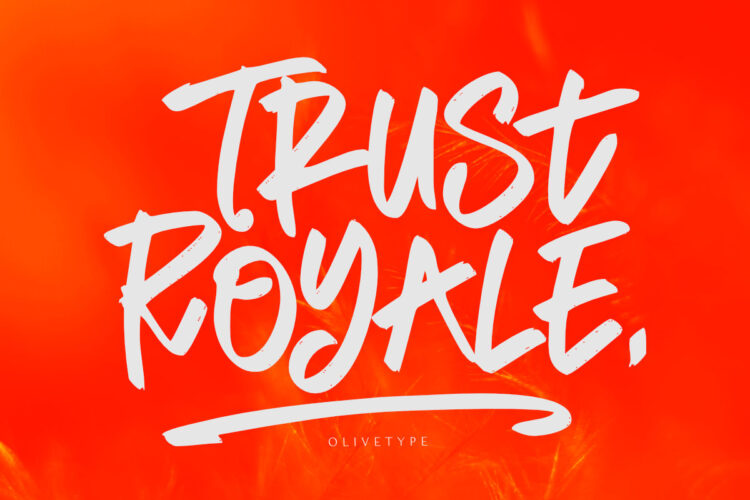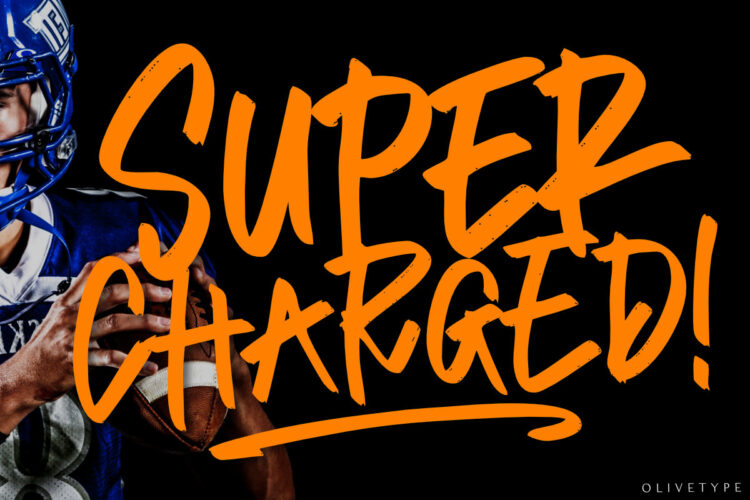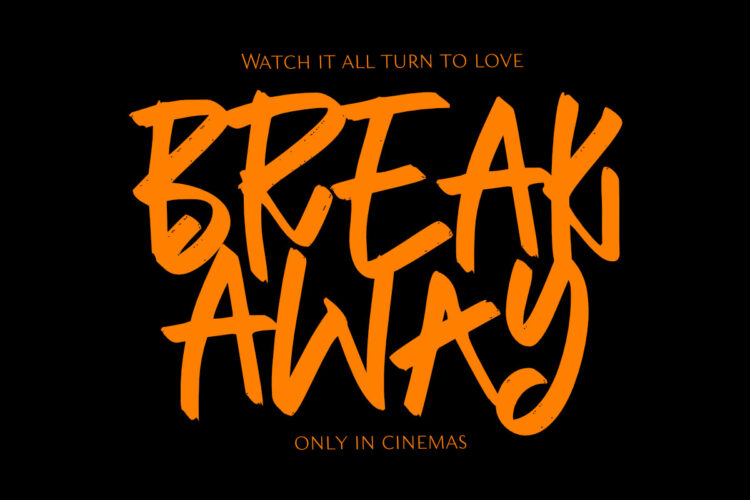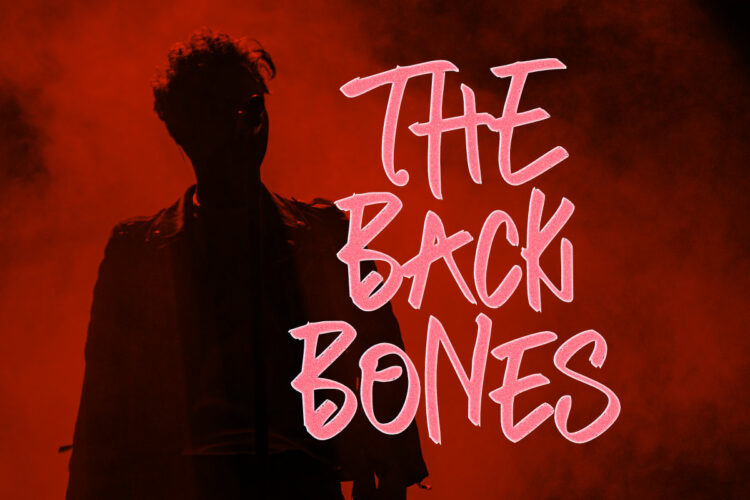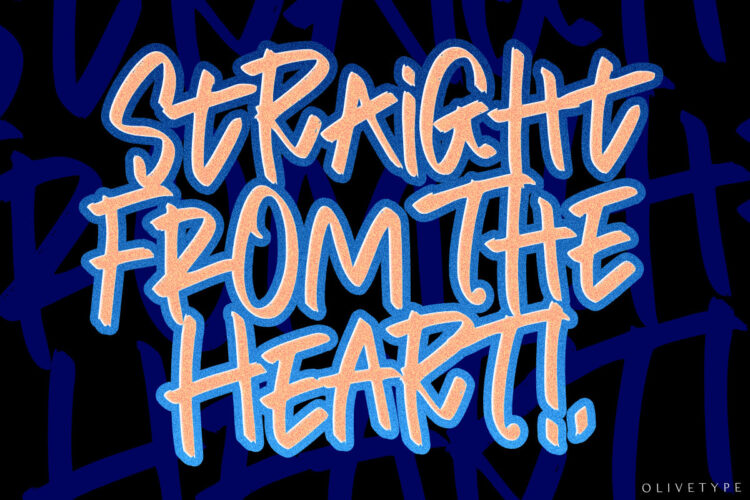
Looking for a fresh and new font for your design project? We’ve got you covered with Trust Royale, the latest brush typeface craze on the scene. With its minimalistic, graffiti-style feel, this typeface is perfect for both cool and trendy designs. Not only is it inspired by hand-painted letters on walls, but it’s also available in multiple languages – giving you more freedom to express yourself.